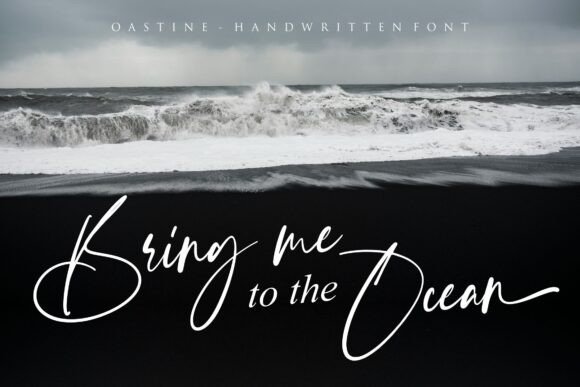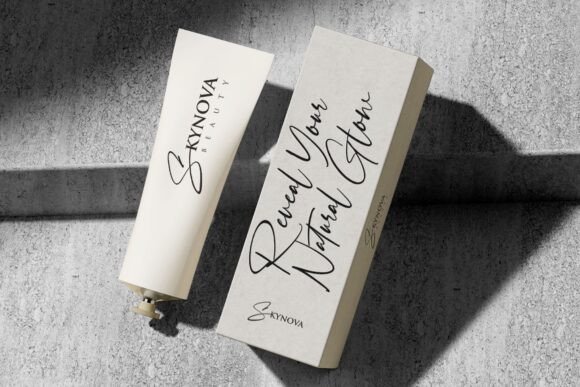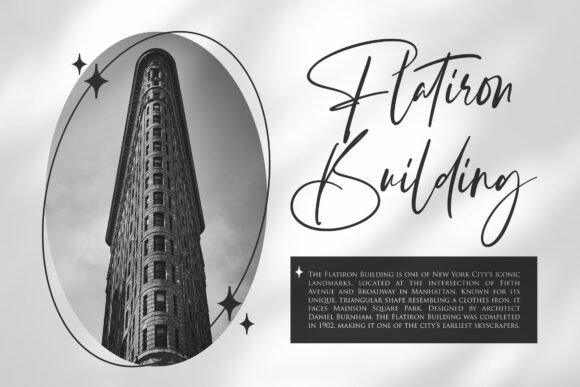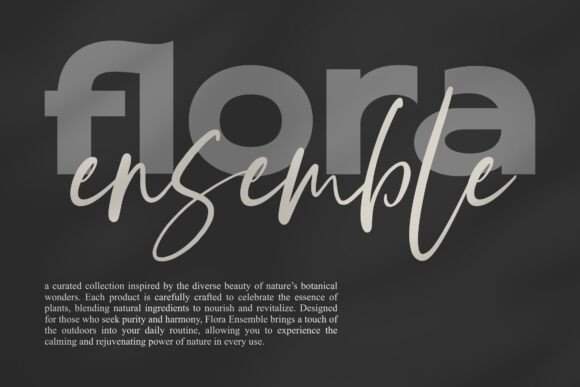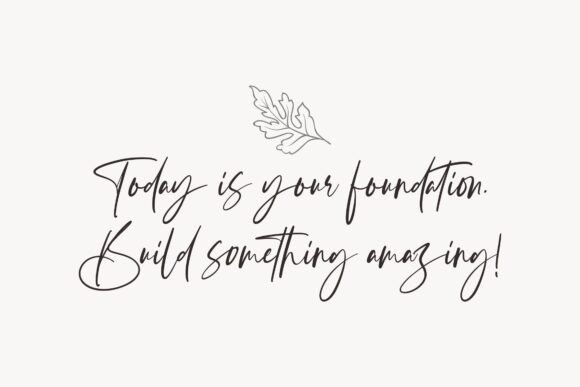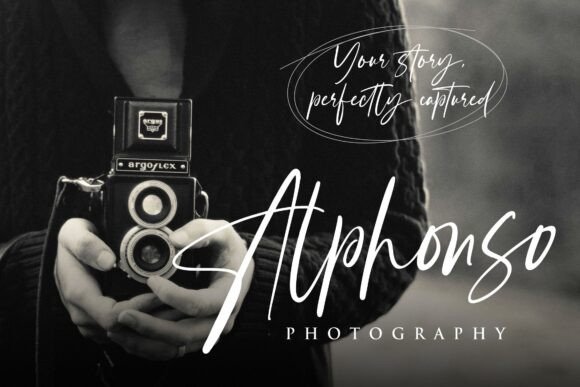
Introduction to Oastine Font
Have you ever found yourself scribbling down a handwritten note, only to realize that it’s the perfect addition to a design project? The imperfections, the character, and the charm of hand-drawn script can make all the difference in elevating a design from ordinary to extraordinary. That’s exactly what the Oastine Font aims to capture – the essence of handwritten elegance, now available at your fingertips.
As designers, we’re constantly on the lookout for design resources that can breathe life into our creative projects. Whether it’s a wedding invitation, a bespoke journal, or a brand’s packaging, the right font can make all the difference. And that’s where the Oastine Font comes in – a high-quality digital font that combines the individuality of hand lettering with the practicality of a free download, making it the perfect addition to any design project.
With its smooth, gentle strokes and transparent background, the Oastine Font is a versatile design resource that can be used across various creative projects, from branding to packaging and beyond. Whether you’re a seasoned designer or just starting out, this elegant font is sure to add a touch of authenticity and elegance to your work.
Key Features of Oastine Font
- High-quality, professional font design suitable for creative projects.
- Features a transparent background, allowing for easy customization and versatility.
- Unique characteristics: Elegant, cursive script with a touch of modernity, perfect for titles, headings, and other design elements.
Honest Review: Oastine Font
As a designer, I’ve had the opportunity to work with a wide range of fonts, and I’m excited to share my thoughts on the Oastine Font. I downloaded it for free, and I was immediately struck by its high quality.
One of the things that works well with the Oastine Font is its versatility. It’s perfect for creative projects where you need a font that can convey a sense of elegance and sophistication. The font’s subtle nuances and refined lines make it an excellent choice for designs that require a touch of sophistication.
Here are some of the key features that I appreciate about the Oastine Font:
- Comes with a transparent background, allowing for easy customization
- Perfect for designs that require a touch of elegance and sophistication
One limitation I’ve noticed with the Oastine Font is that it may not be suitable for very bold or edgy designs. Its refined lines and subtle nuances may not be enough to convey a strong, attention-grabbing message. ⚠️
Overall, I’m impressed with the Oastine Font and would highly recommend it to designers looking for a high-quality, elegant font. It’s a great addition to any design library, and I’m excited to see how it will work on my next project. ✨
Transparent Background and High-Quality Output
Oastine Font offers a transparent background, making it perfect for creative projects that require a seamless design. Additionally, the font is available in high quality, ensuring that your text will look crisp and clear.
Oastine Font is ideal for a variety of design projects, including logos, branding materials, and marketing materials. It’s also a great choice for designers who want a unique and creative font for their design resource.